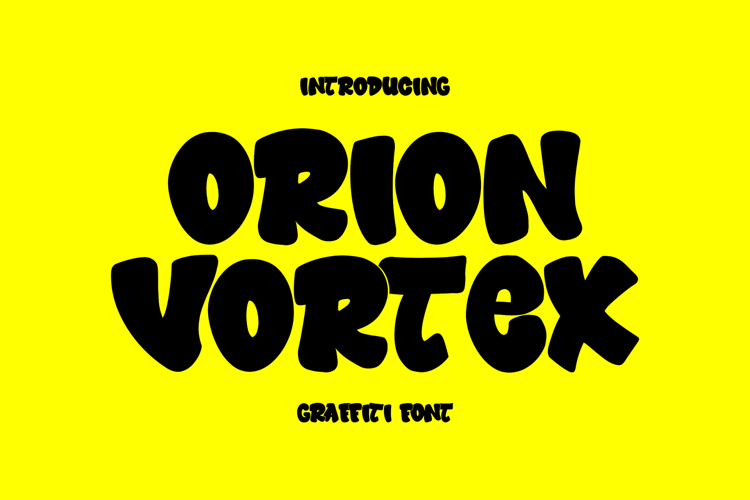
Orion Vortex - Rounded Graffiti Font
Orion Vortex is a rounded graffiti display font bursting with playful street energy and bold urban character. Designed with thick bubble-shaped lettering and smooth curves, this typeface brings a fun, expressive graffiti style that feels both friendly and explosive. The letters are built with a soft, inflated structure that mimics hand-drawn bubble tags, complete with subtle drips and lively movement.
Inspired by modern street murals, cartoon graffiti, and colorful hip-hop artwork, Orion Vortex combines youthful attitude with a clean, approachable construction. Each character appears big, bouncy, and dynamic, making the font perfect for projects that need a mix of street identity and joyful personality.
Its rounded shapes make it stand out from traditional sharp graffiti fonts—Orion Vortex focuses on fun, flow, and readability while still carrying the rebellious DNA of graffiti culture. The outlines and interior shapes maintain high contrast, giving the text strong visibility across posters, packaging, digital artwork, and merchandise.
Orion Vortex excels in bold and energetic design environments such as:
• Streetwear apparel
• Kids branding & playful packaging
• Hip-hop event visuals
• Bubble-style graffiti artworks
• Stickers, posters, and merchandise
• YouTube thumbnails & social media graphics
• Gaming titles and cartoon characters
The rounded graffiti style ensures high readability while still delivering powerful street attitude. The big shapes give text a strong presence, making it ideal for large headlines or expressive artistic compositions.